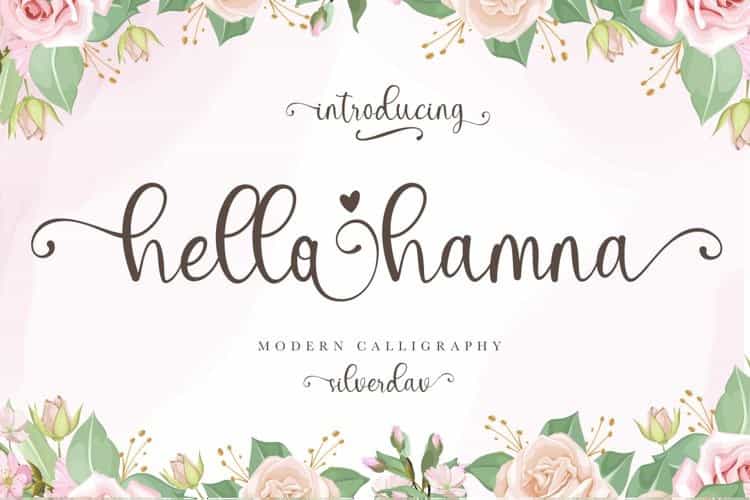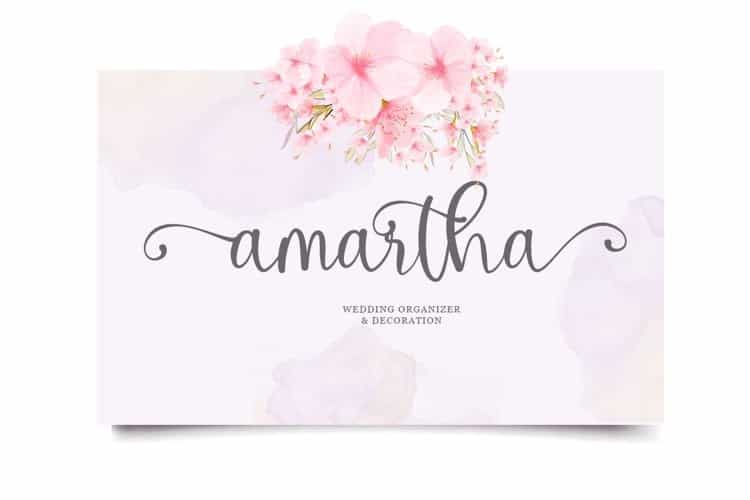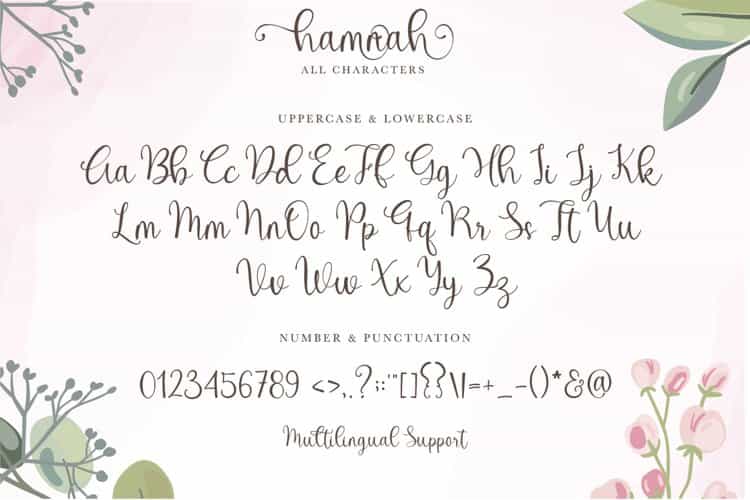
Introducing Hello Hamna Font. A calligraphy typeface that includes an extensive Latin and Greek character set. Notably this font comes equipped with diacritics to support languages. You’ll also find a character set in Hello Hamna Font along with diacritics and ligatures.